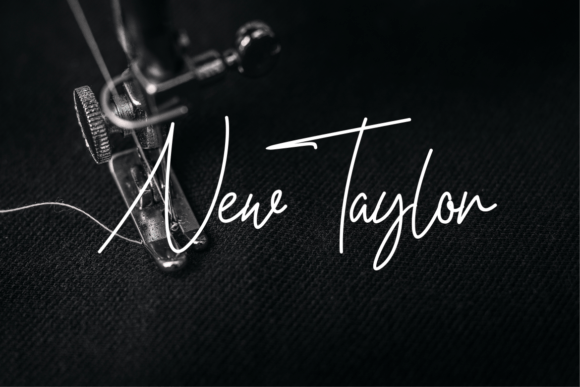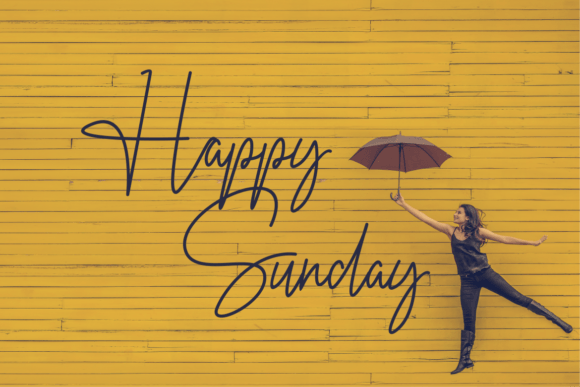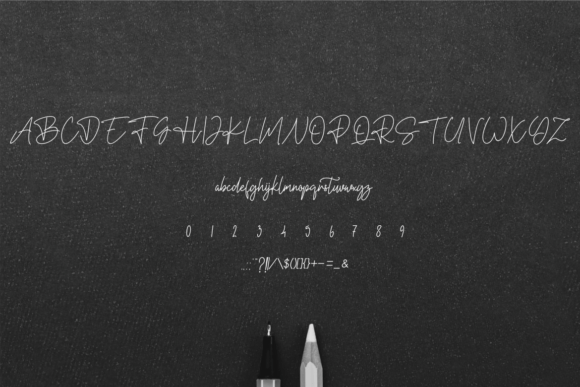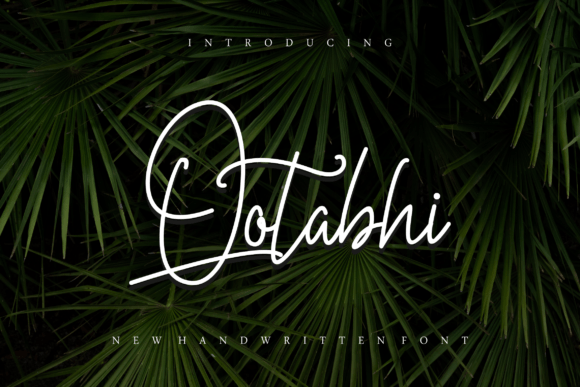
Introduction to Qotabhi Font
Qotabhi Font is a modern and elegant handwritten font.
Grab this wonderful font and bring your design projects to life It’s suitable for logos, t-shirt printing, branding, headers, covers, posters, and more.
Key Features of Qotabhi Font
Why Choose Qotabhi Font?
Qotabhi Font offers exceptional quality and versatility, making it a valuable addition to your design toolkit. Whether you’re creating for personal projects or commercial use, Qotabhi Font delivers professional results.